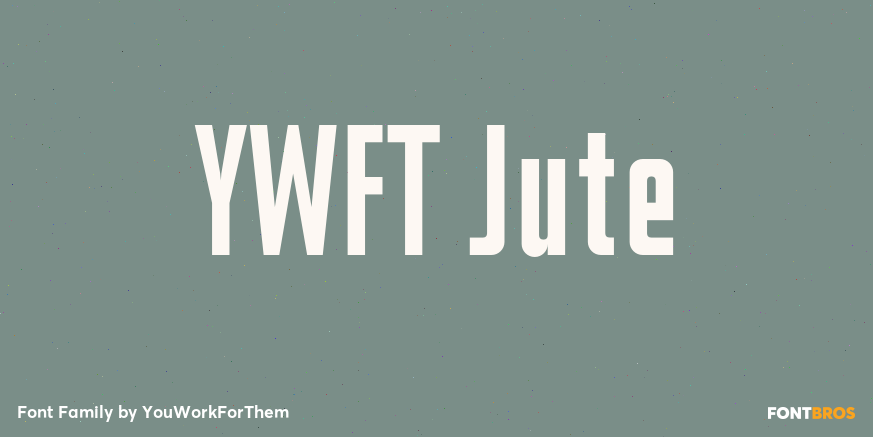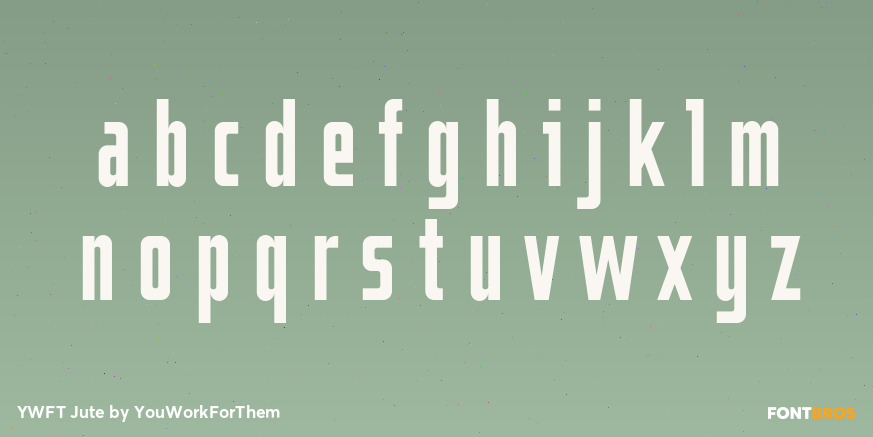
YWFT Jute
YWFT Jute is a masculine, military, sans-serif design that was realized through a series of revisions to another typeface design called Flier. The constant reworking of Flier gave it a completely different look and feel, and thus was YWFT Jute forged. YWFT Jute is sharp, rigid and vicious, making for a striking solution when you need some seriously arresting headlines or short body text. YWFT Jute was converted to Opentype format in 2010. Designed exclusively by Michael Cina and YouWorkForThem.